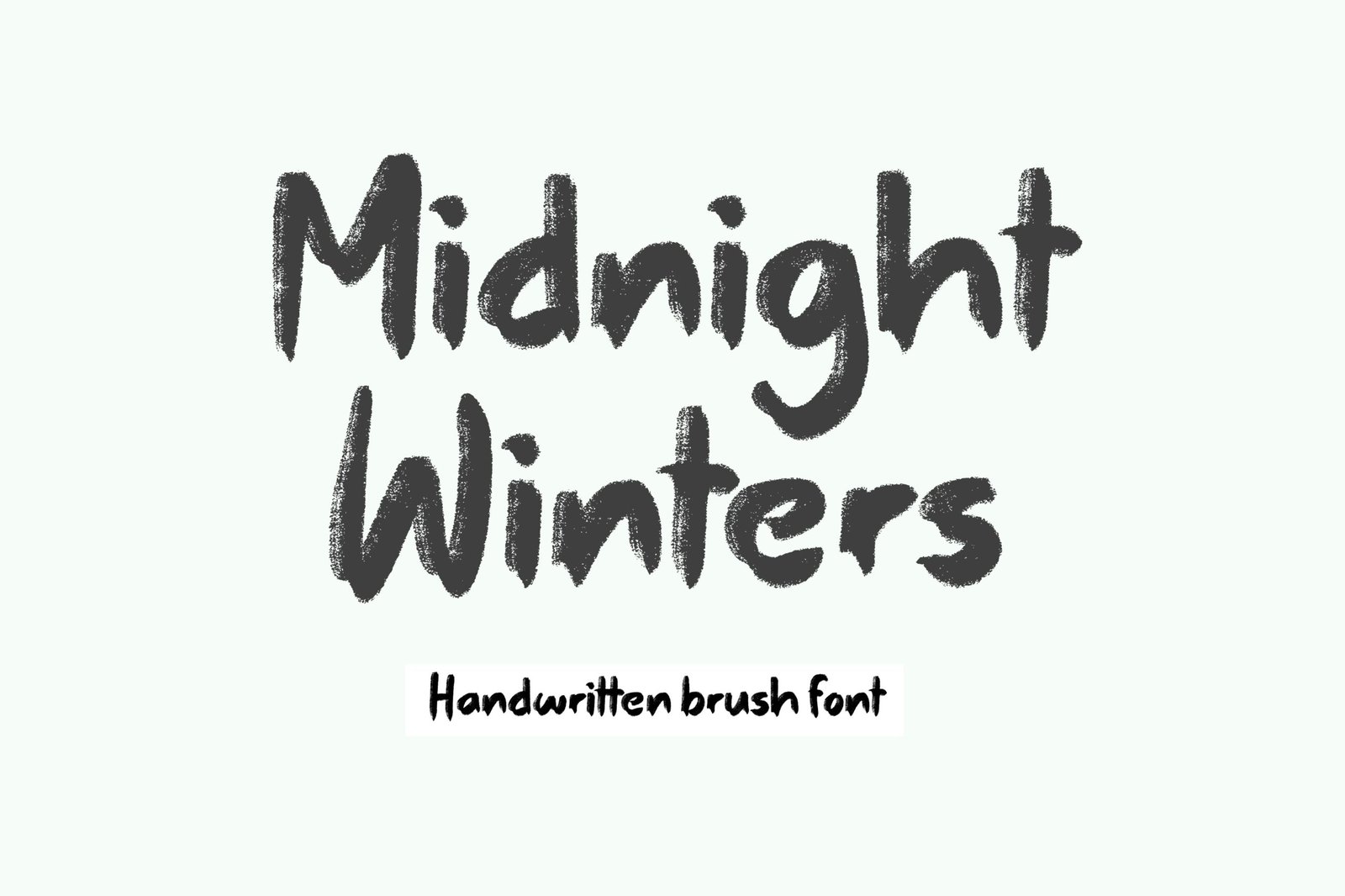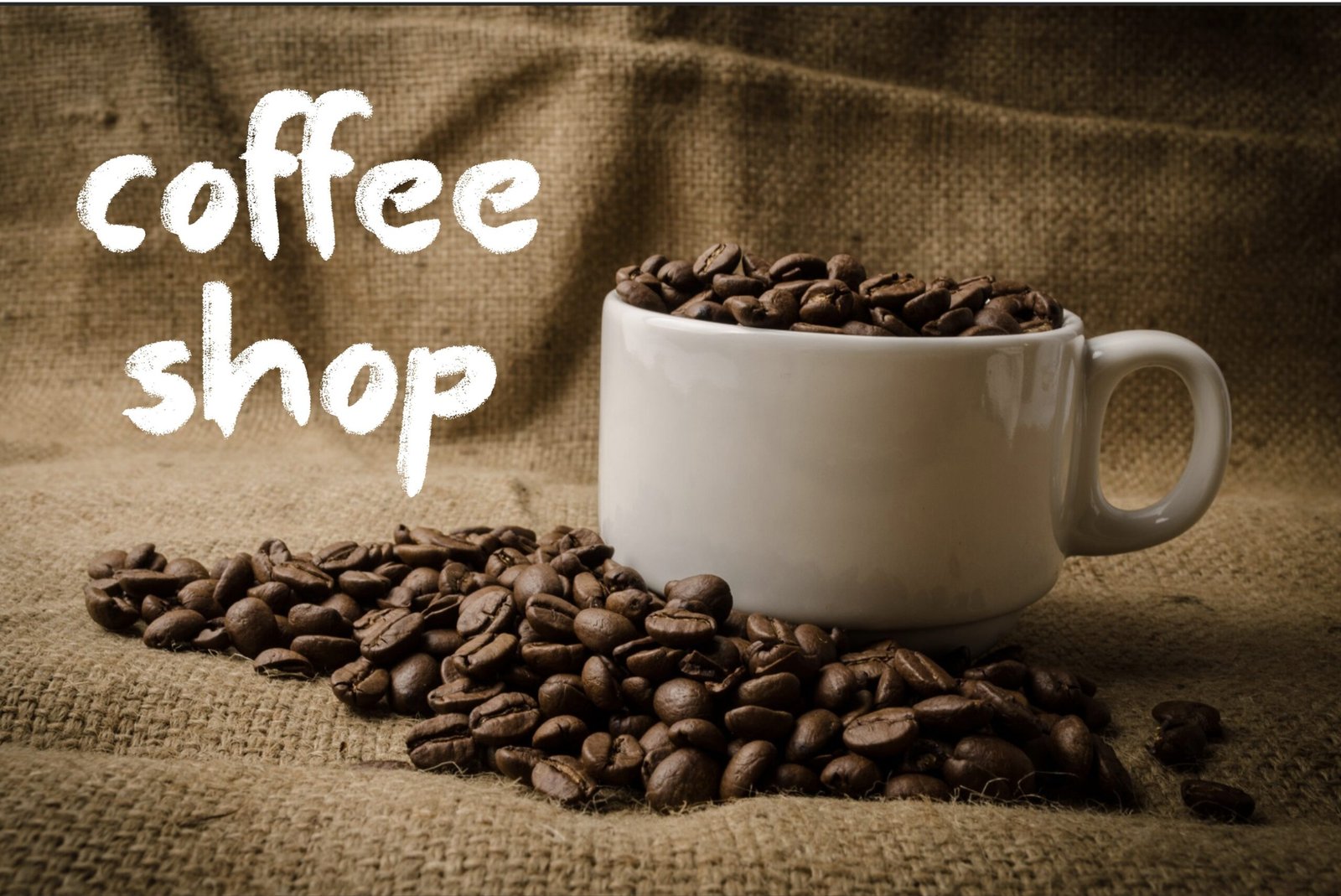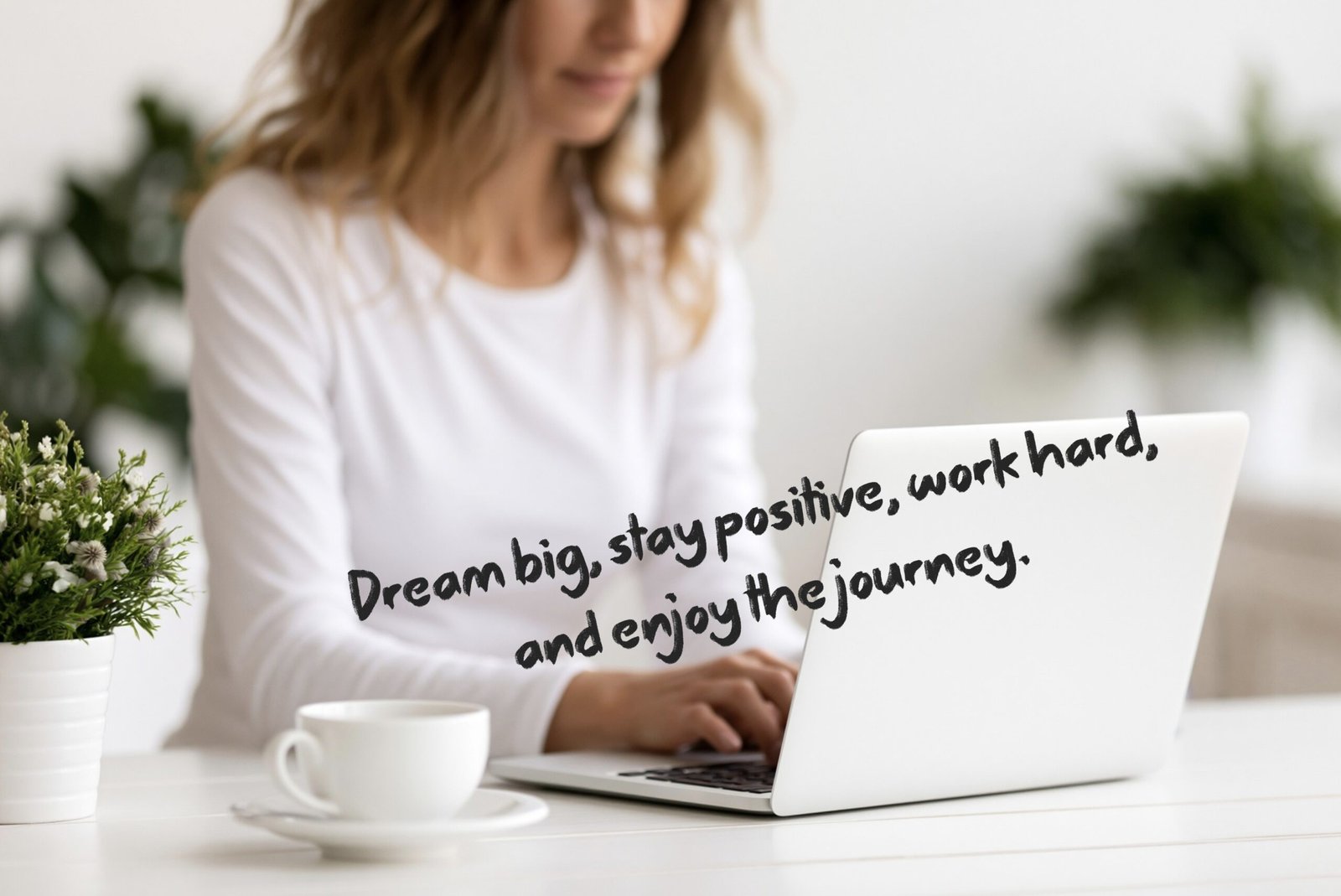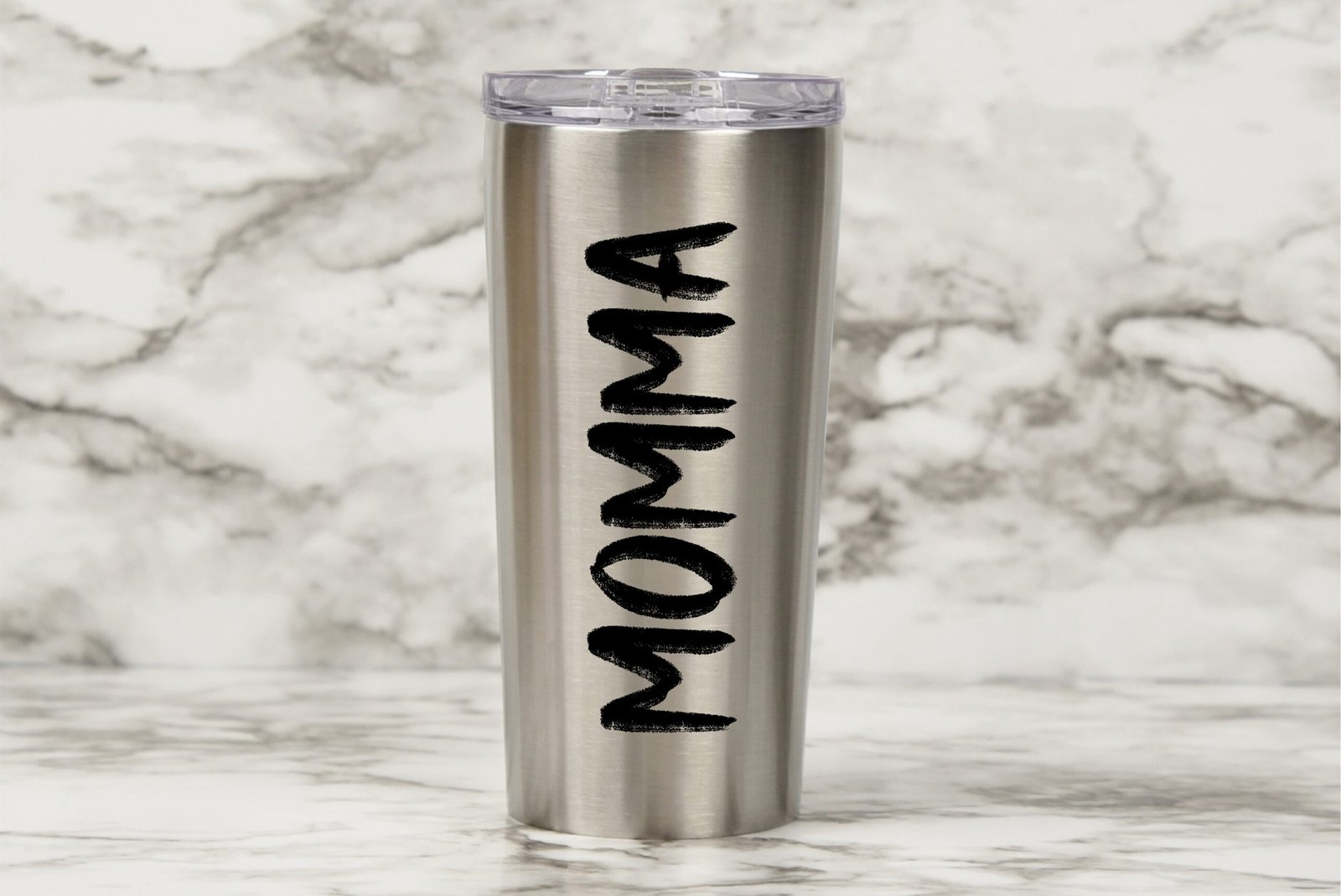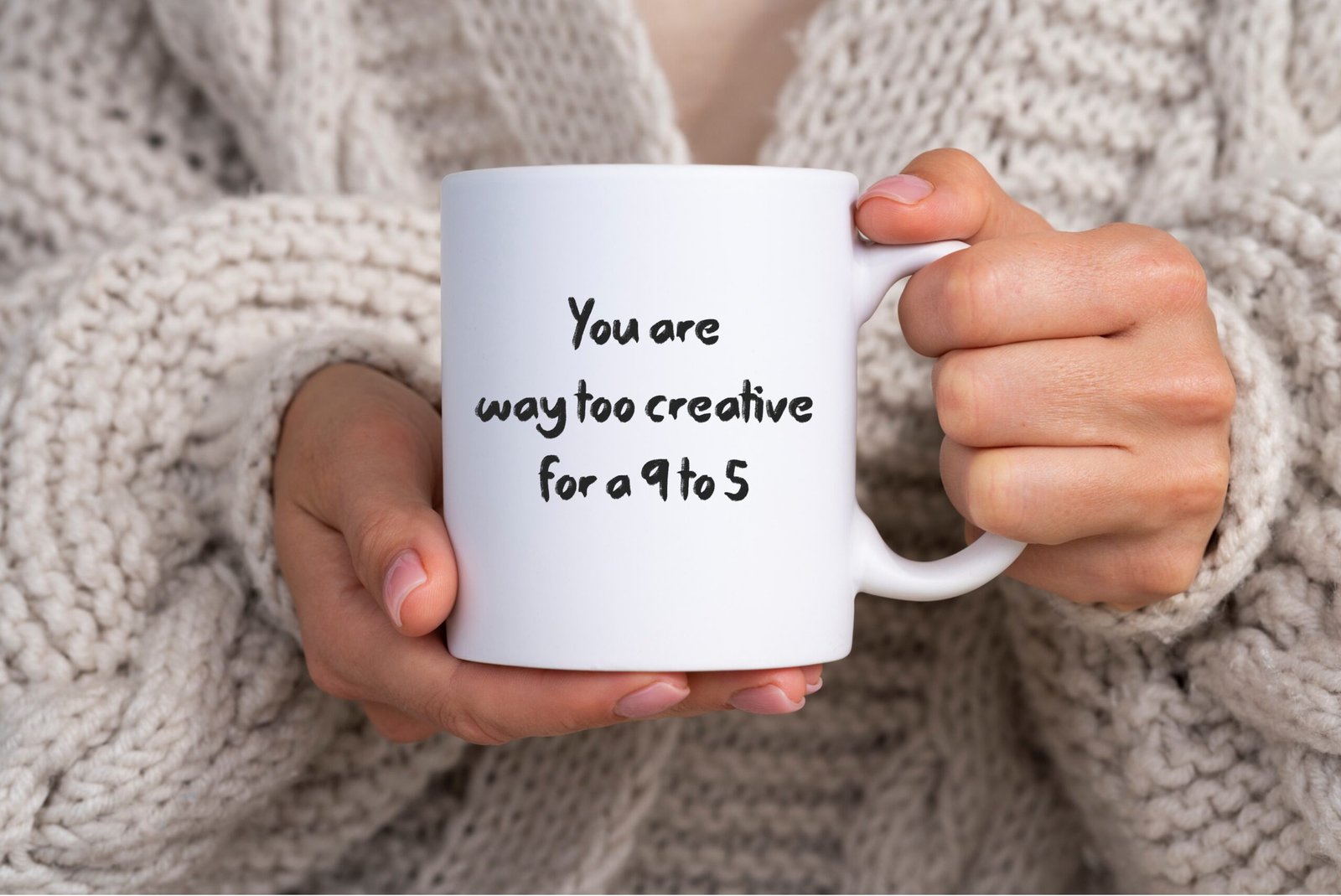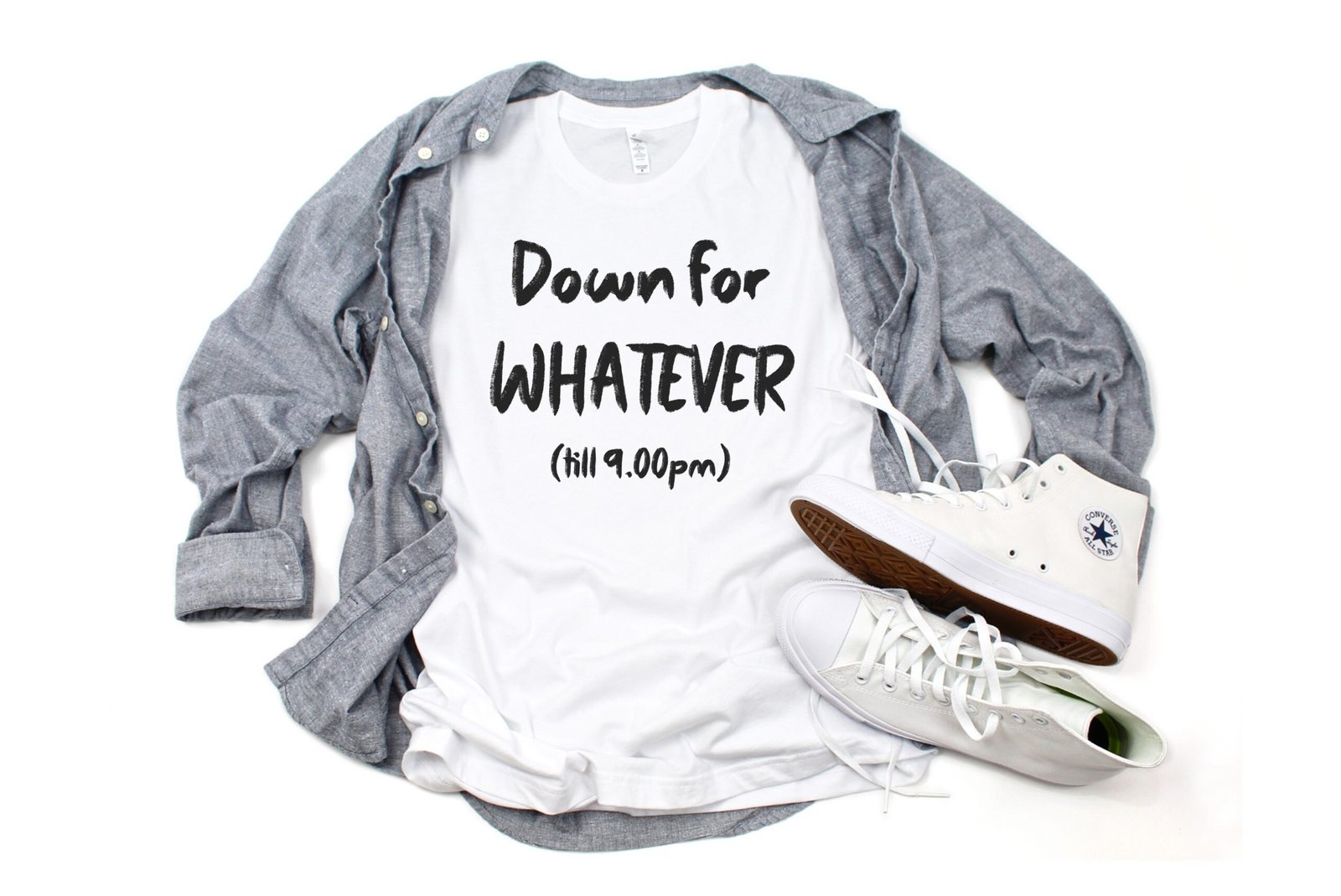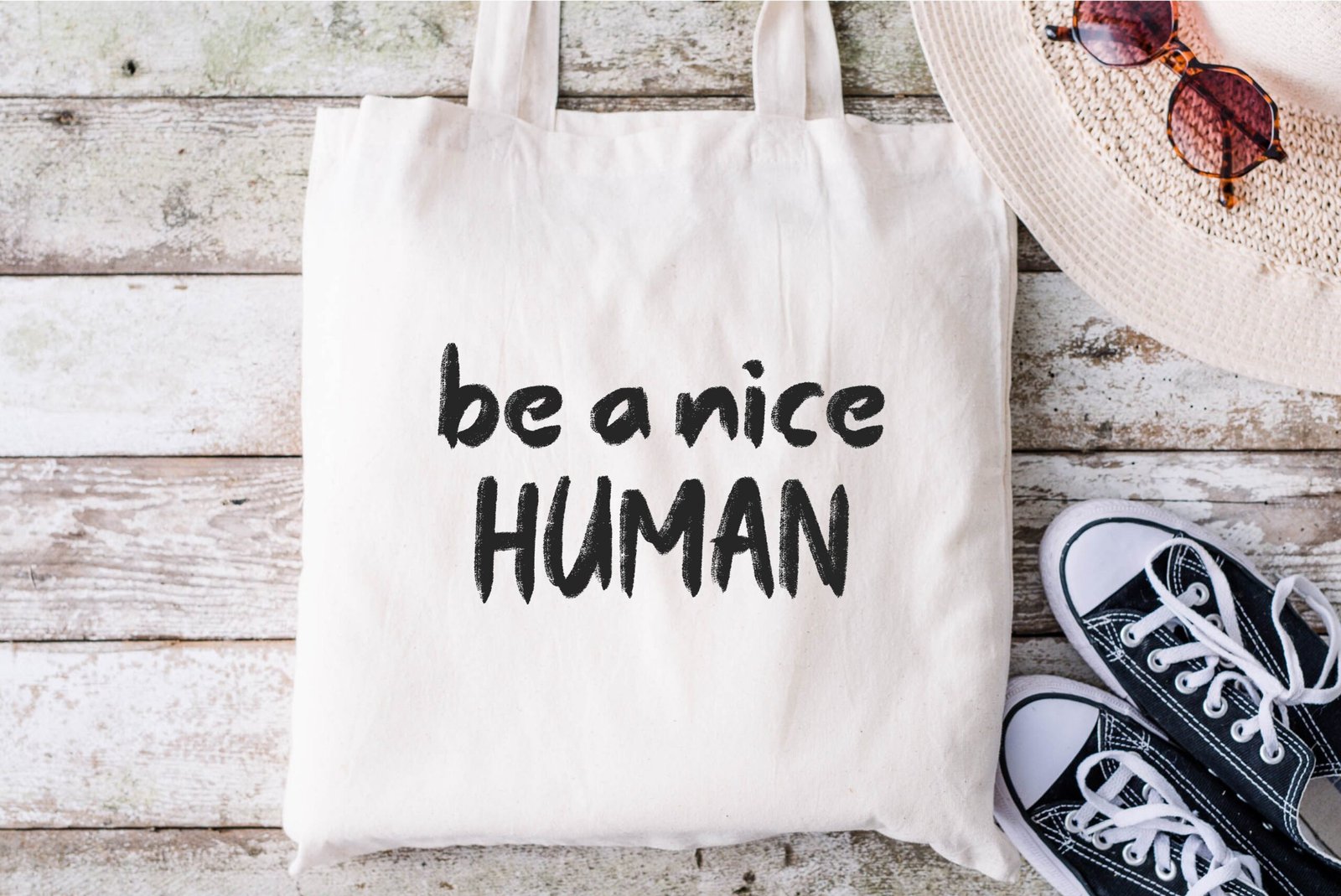
Midnight Winters Font
Handwritten brush font. “Midnight Winters”. Perfect for advertising and display purposes, including banners, book covers, shirts, posters, logos and much more!
Featuring upper and lowercase letters, numbers, characters, and punctuation.